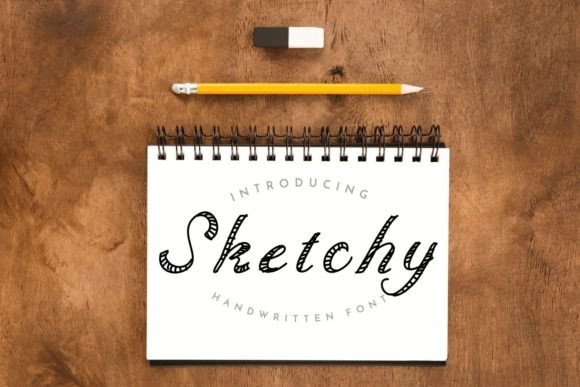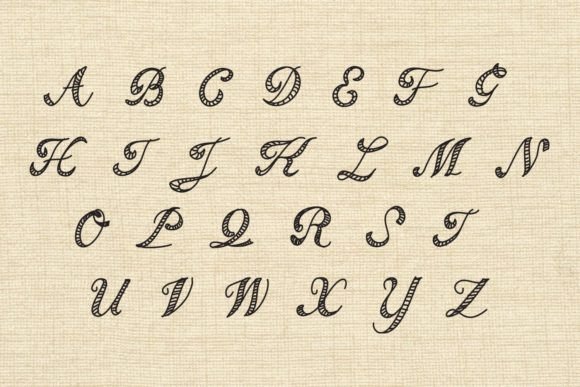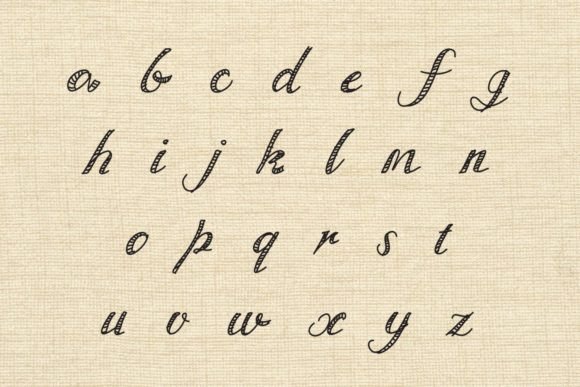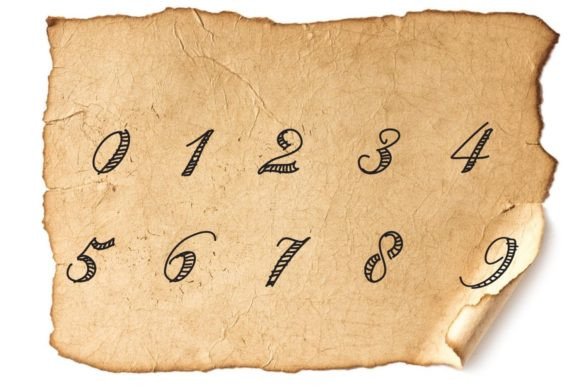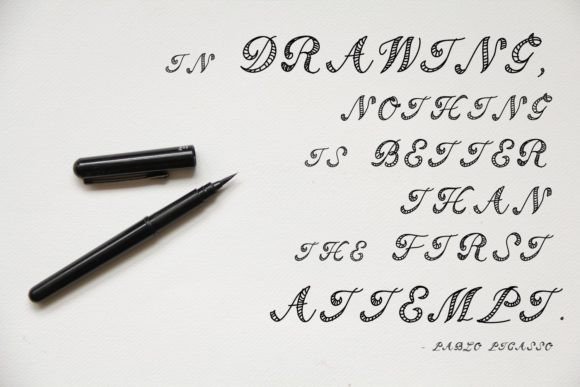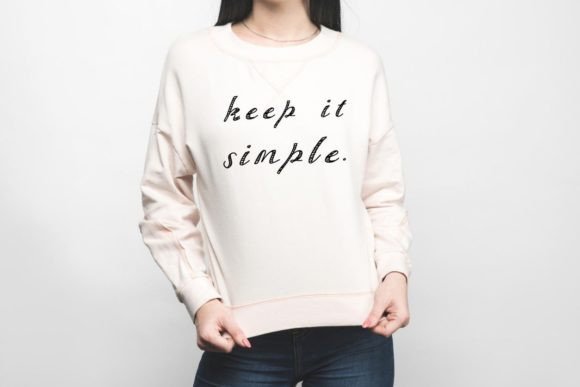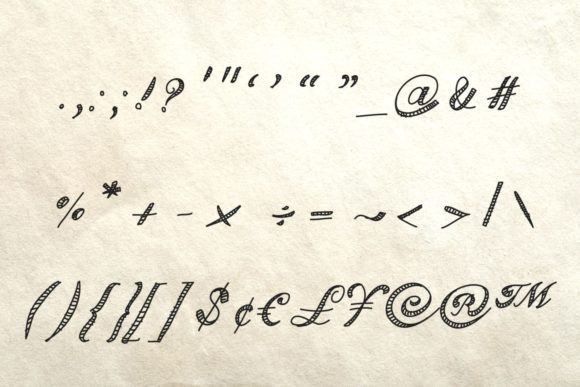
Sketchy Font
About Sketchy Font
“Sketchy” is a distinctive handwritten font that features a sketched line pattern, giving it a unique and artistic character. This font is a versatile choice, suitable for both informal and formal text, and it works particularly well for quotes and product designs on items like mugs or shirts.
The charm of “Sketchy” lies in its ability to convey a sense of creativity and handcrafted artistry. Each character appears as though it’s been sketched by hand, adding an element of uniqueness and individuality to your designs. Imagine using “Sketchy” for a quote on a shirt, where the font’s sketched pattern adds an artistic and custom-made touch.
For quotes, product designs, informal and formal text, and a variety of creative content, “Sketchy” adds a distinctive and personalized quality that captures the essence of handmade art. It has a universal appeal that can make your projects feel authentic and eye-catching.
Furthermore, “Sketchy” offers readability and adaptability, ensuring that your text remains clear and easily legible, even with the sketched line pattern. This attribute is essential when conveying messages or creating products that showcase the font’s artistic qualities.
In summary, “Sketchy” is more than just a font; it’s a design asset that brings a sense of handcrafted artistry to your creative work. Its sketched line pattern and versatility make it suitable for a variety of applications, and its ability to add a unique and personalized touch sets it apart. With “Sketchy” in your font collection, your design projects will stand out with an artistic and custom-made flair that resonates with your audience and leaves a lasting impression.